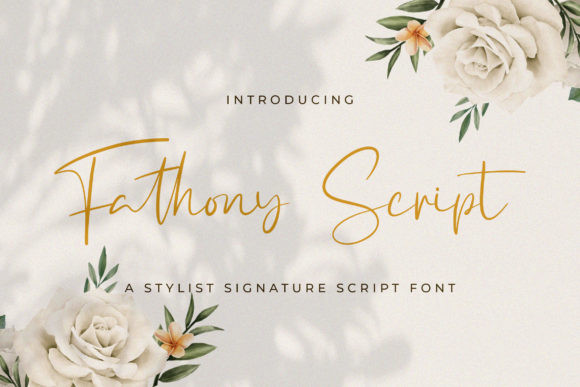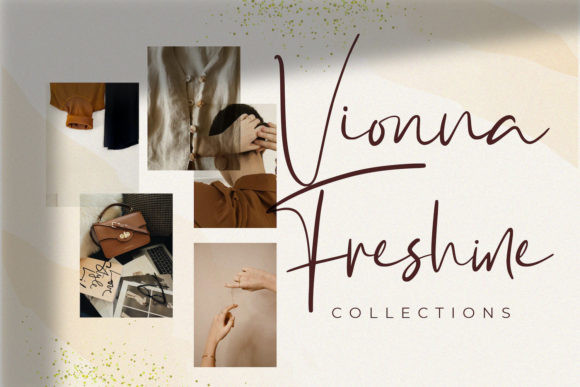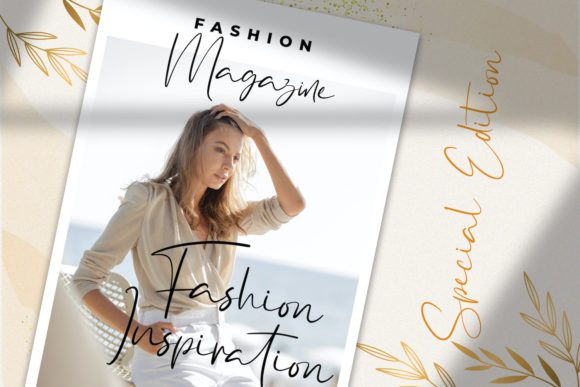
Fathony Font
Fathony is a dainty, thin and refined script font. It has a classy, elegant and modern look that can be used for logos, branding, invitations, stationery, wedding designs, social media posts, and much more!